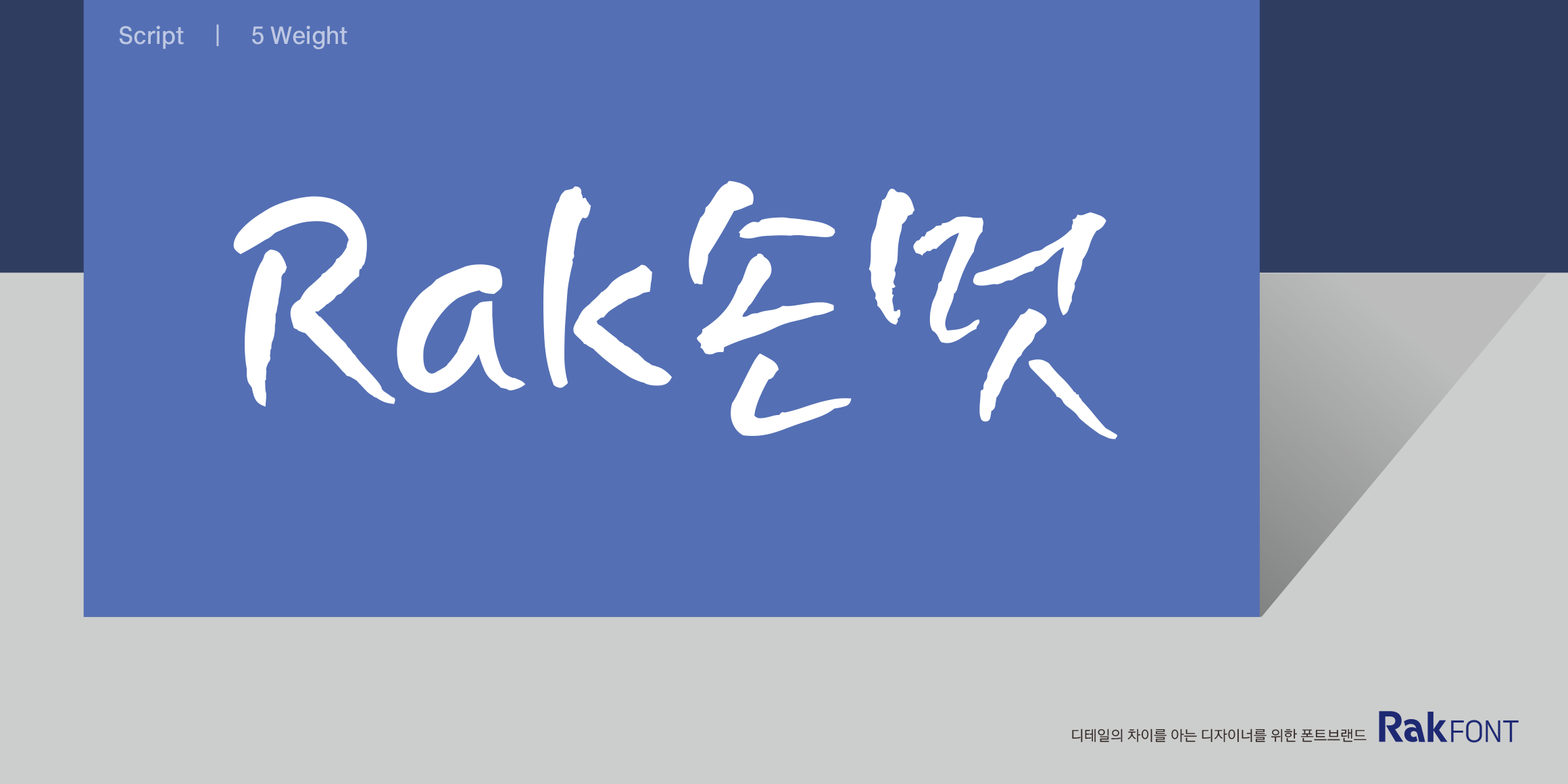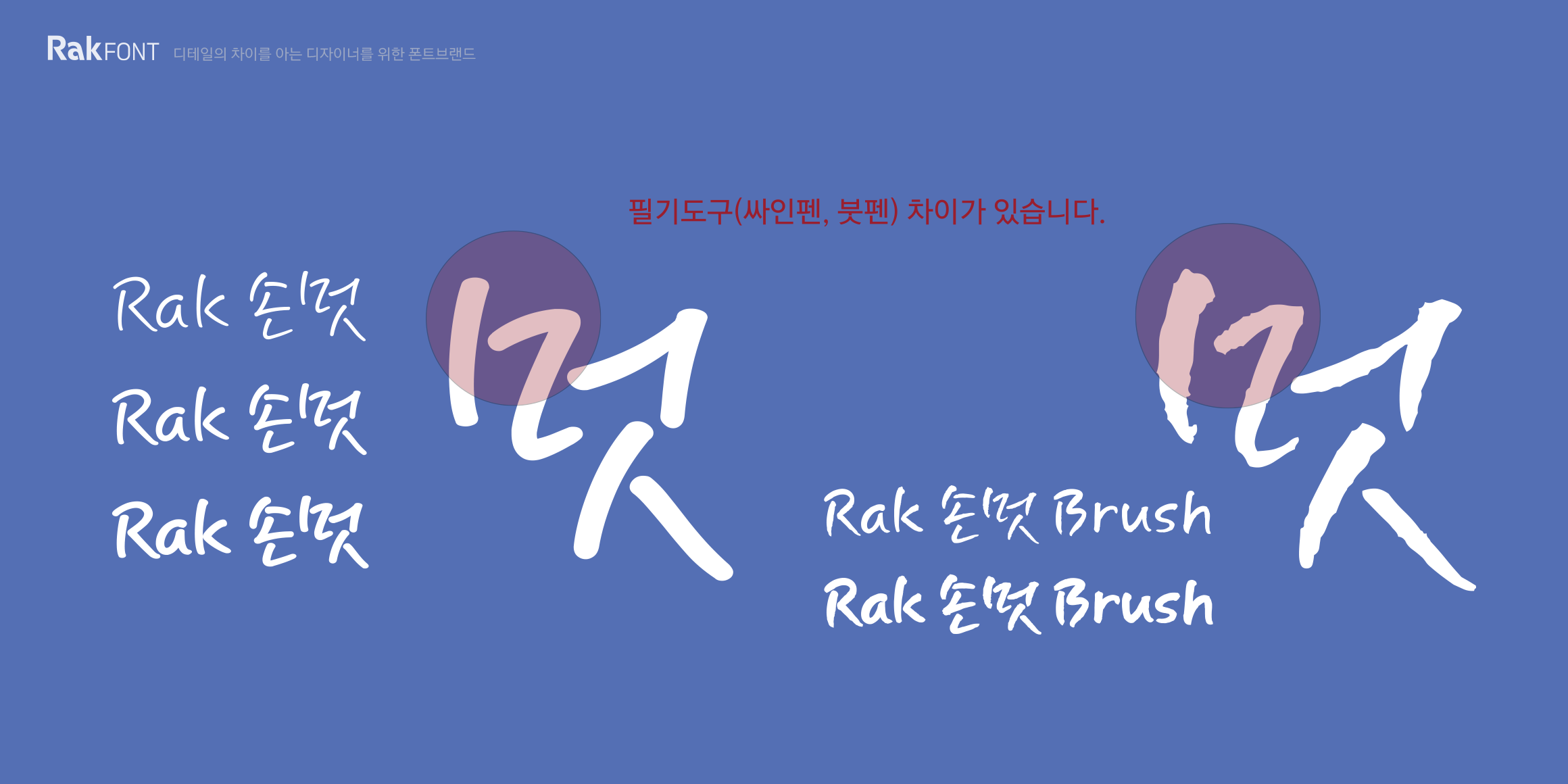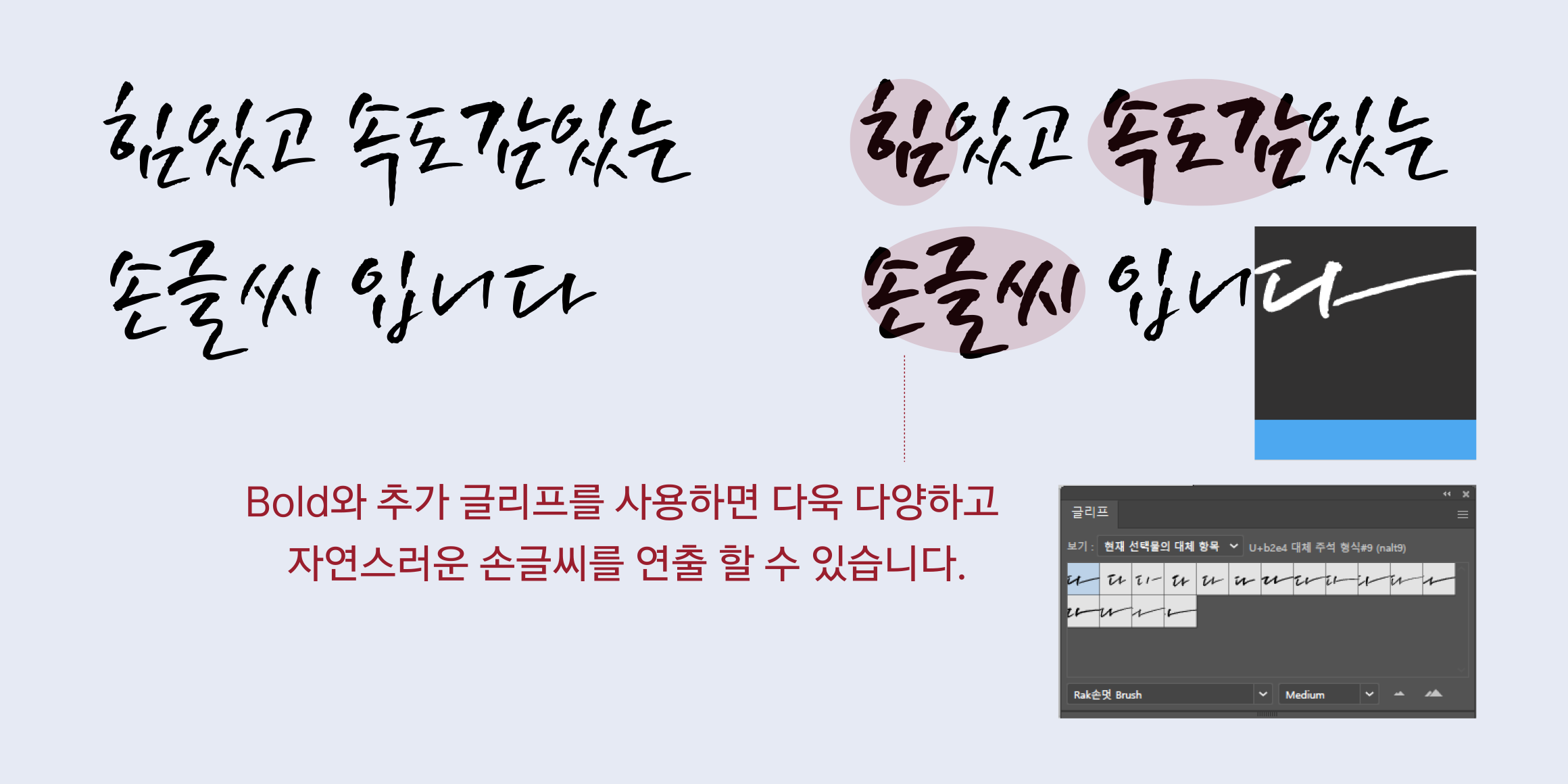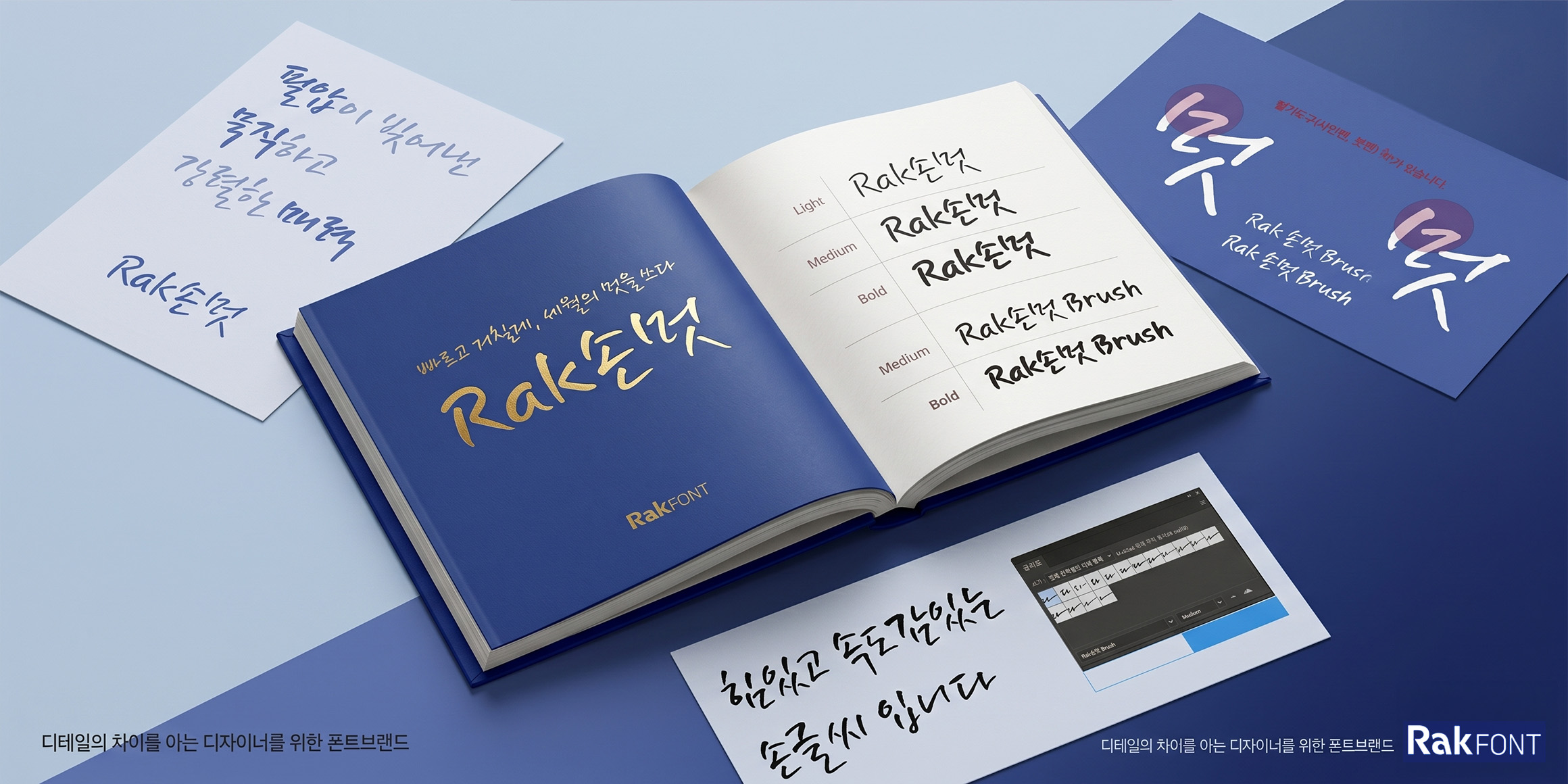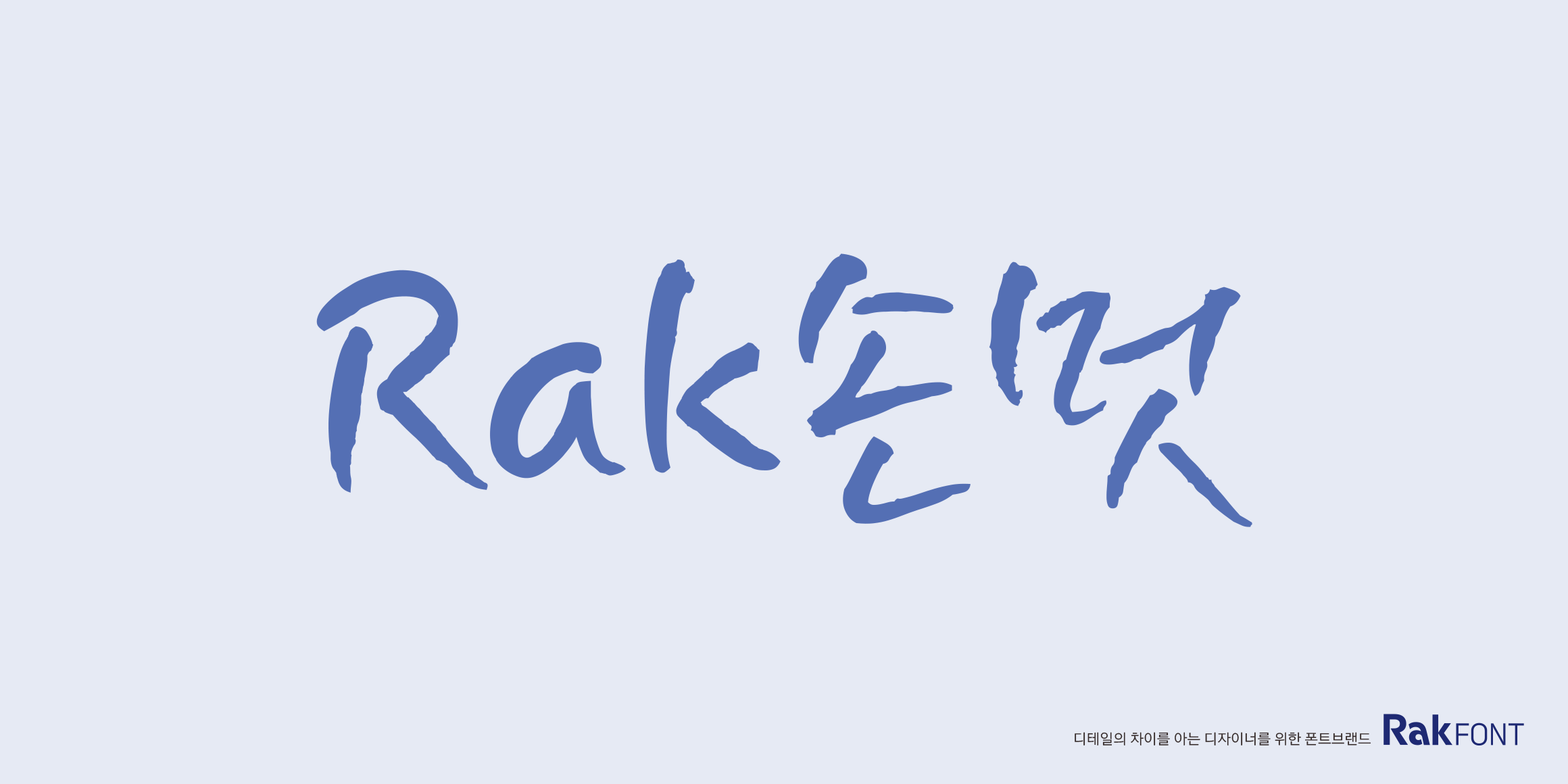
RakSonmut
'Rak Sonmeot' is a typeface that adds calligraphic aesthetic charm to natural handwriting. Inspired by the powerful strokes of a mature man, it elegantly captures the speed of the strokes and delicately reflects the tool characteristics of felt-tip markers and brush pens. In particular, 'Rak Sonmeot Brush' vividly realizes the rough texture and detailed pen pressure unique to a brush pen. By utilizing the 'Alternate Glyphs' feature supported in Adobe programs, the shapes of the letters vary diversely, breaking away from the standardized feel of a digital font to create the ultimate naturalness, as if it were actually written by hand.